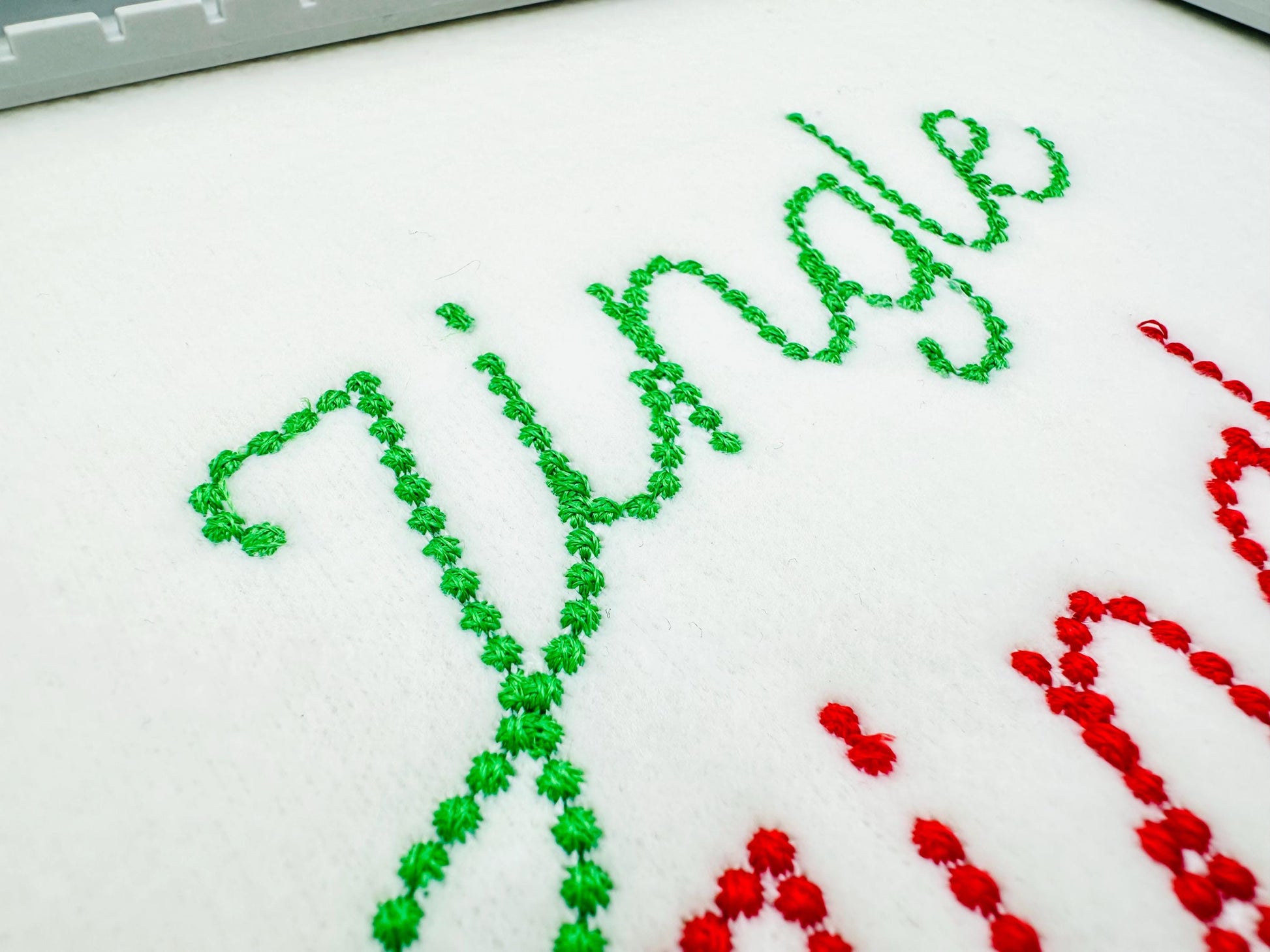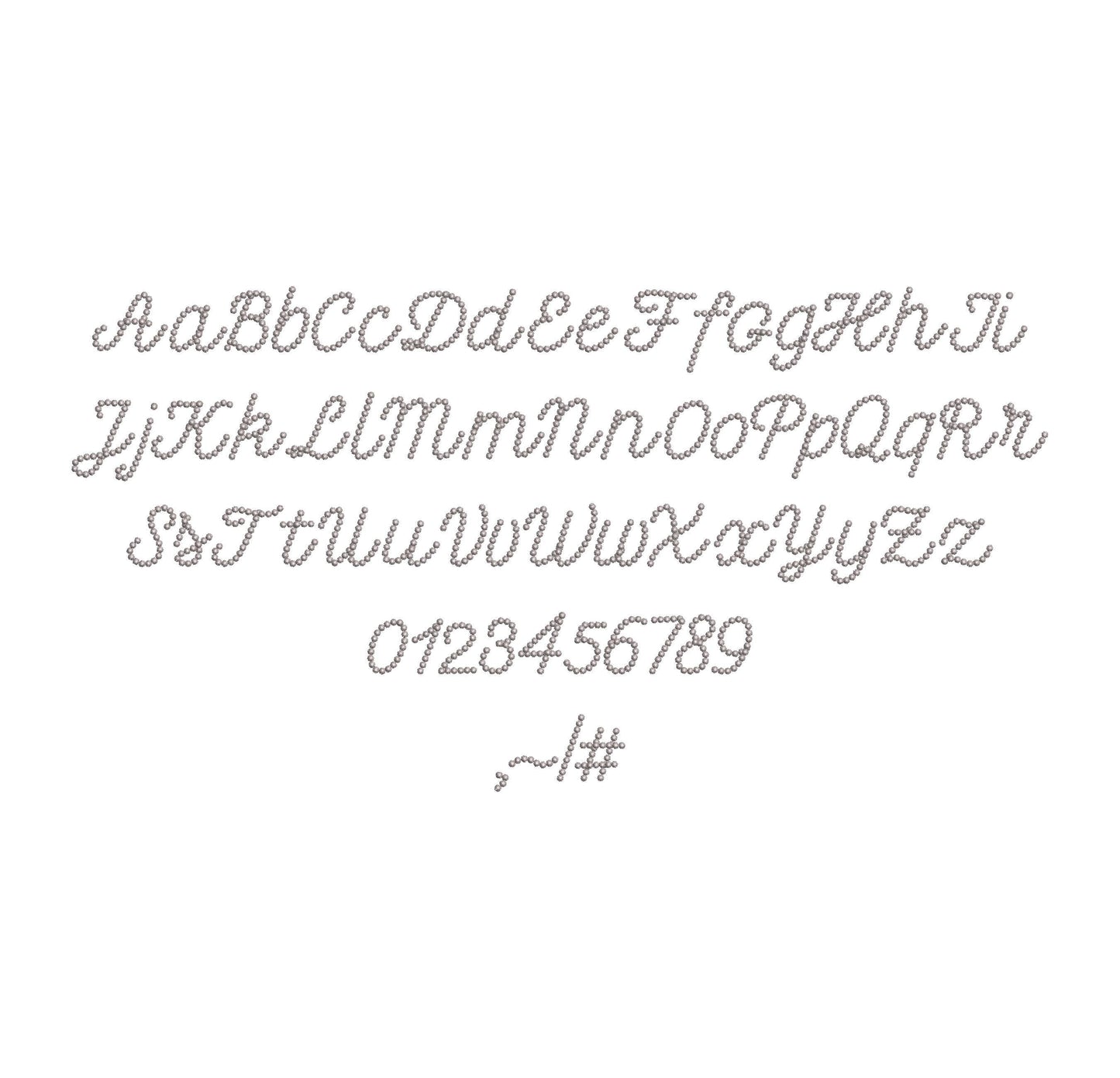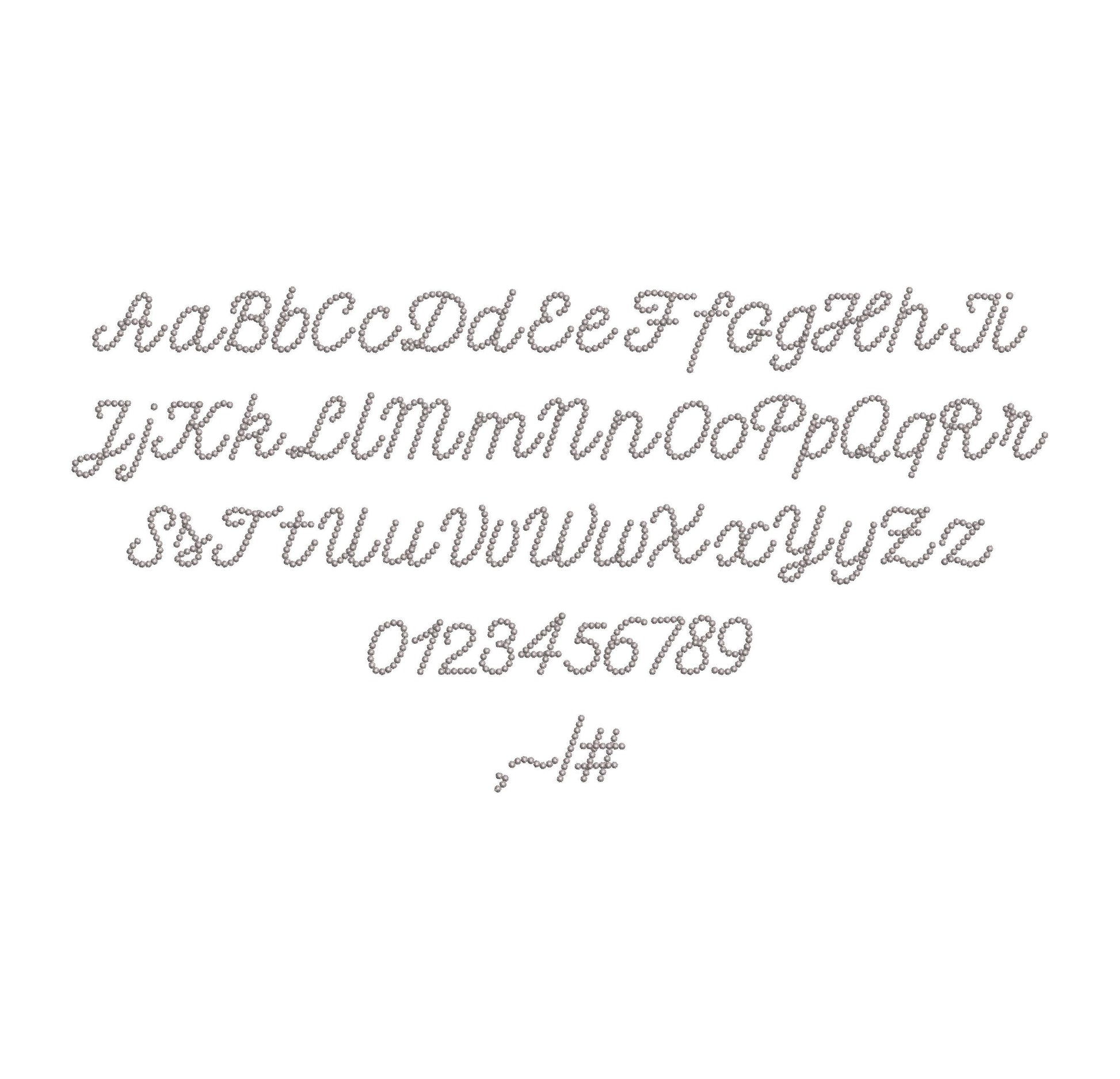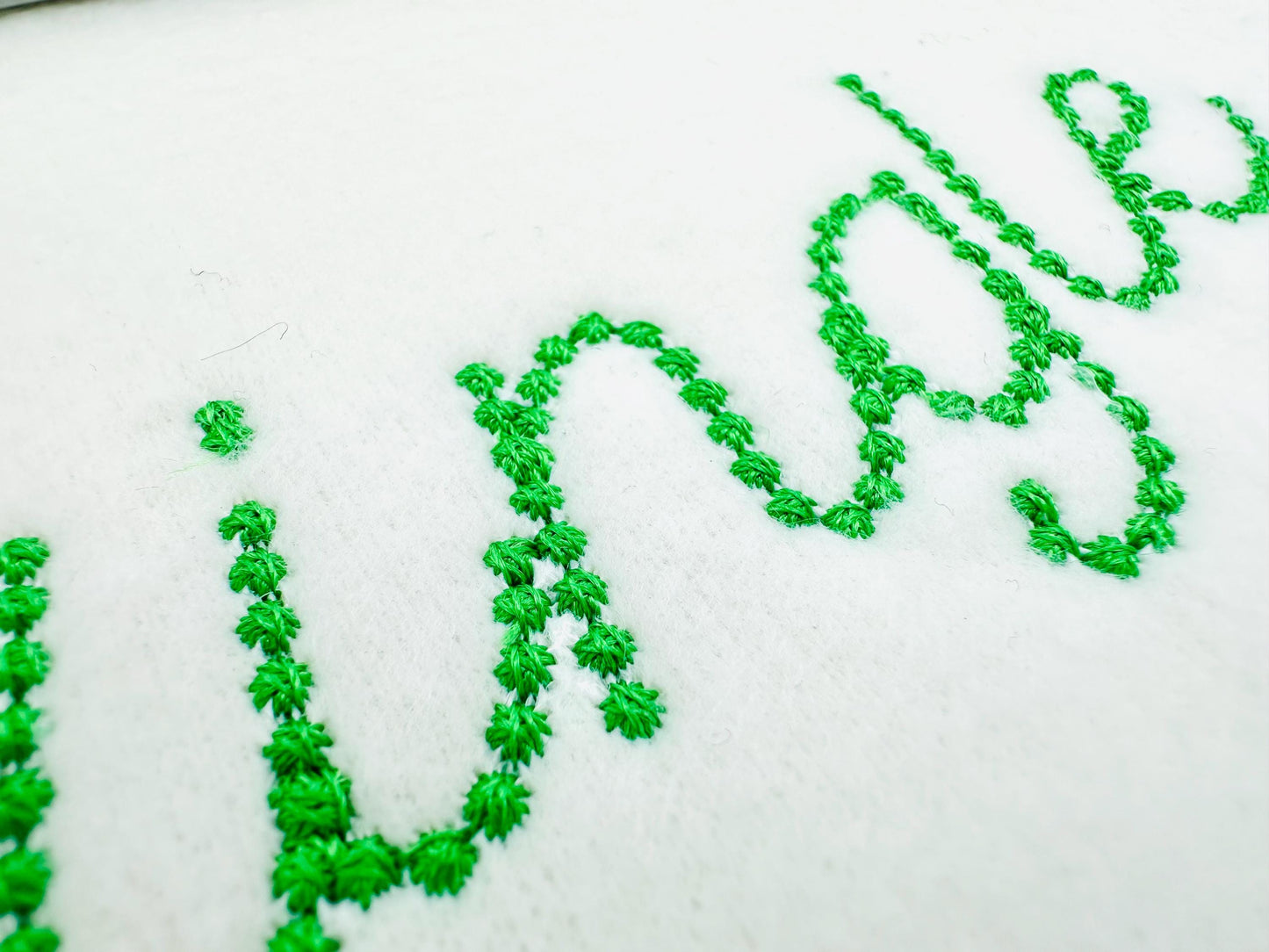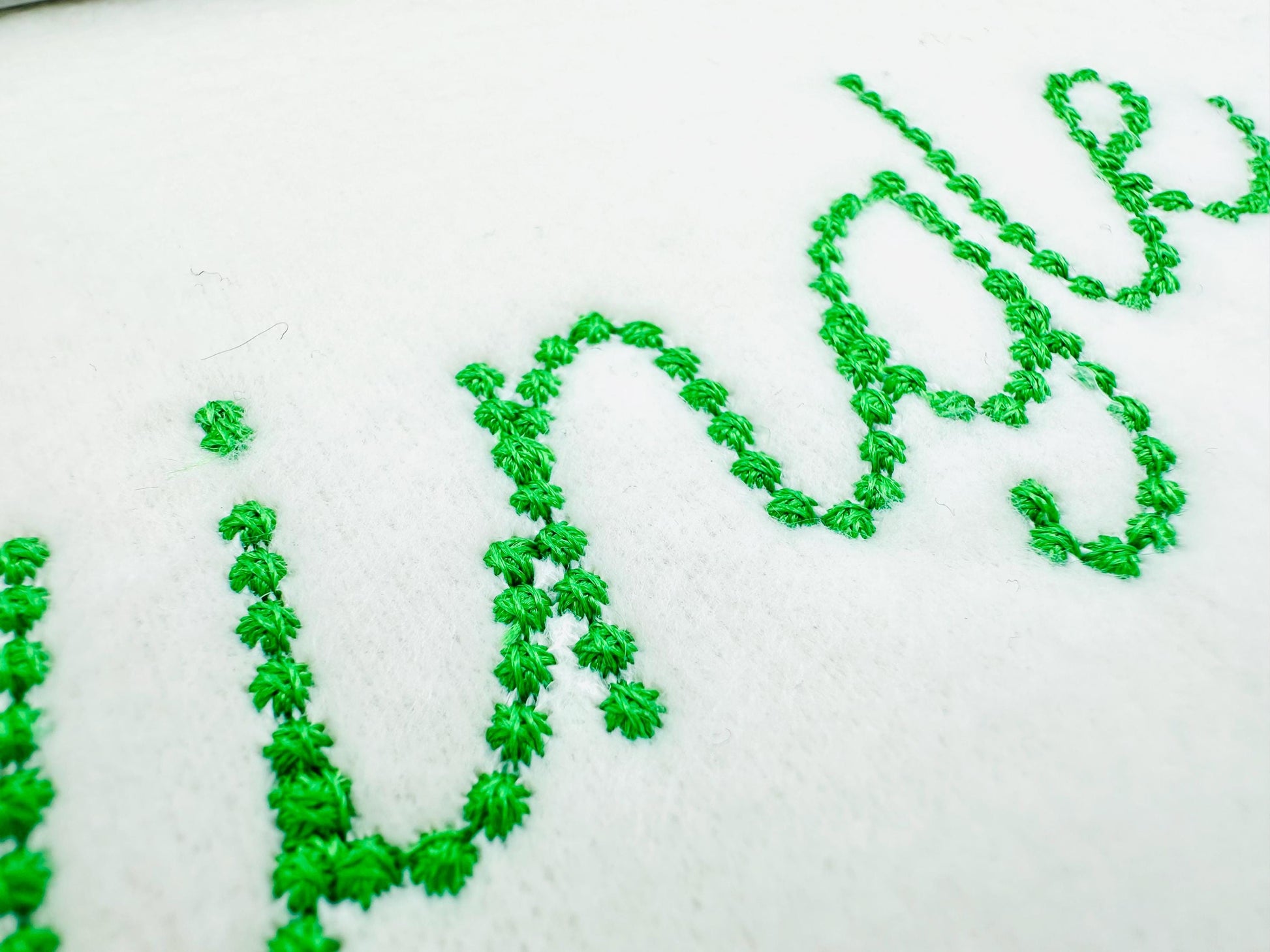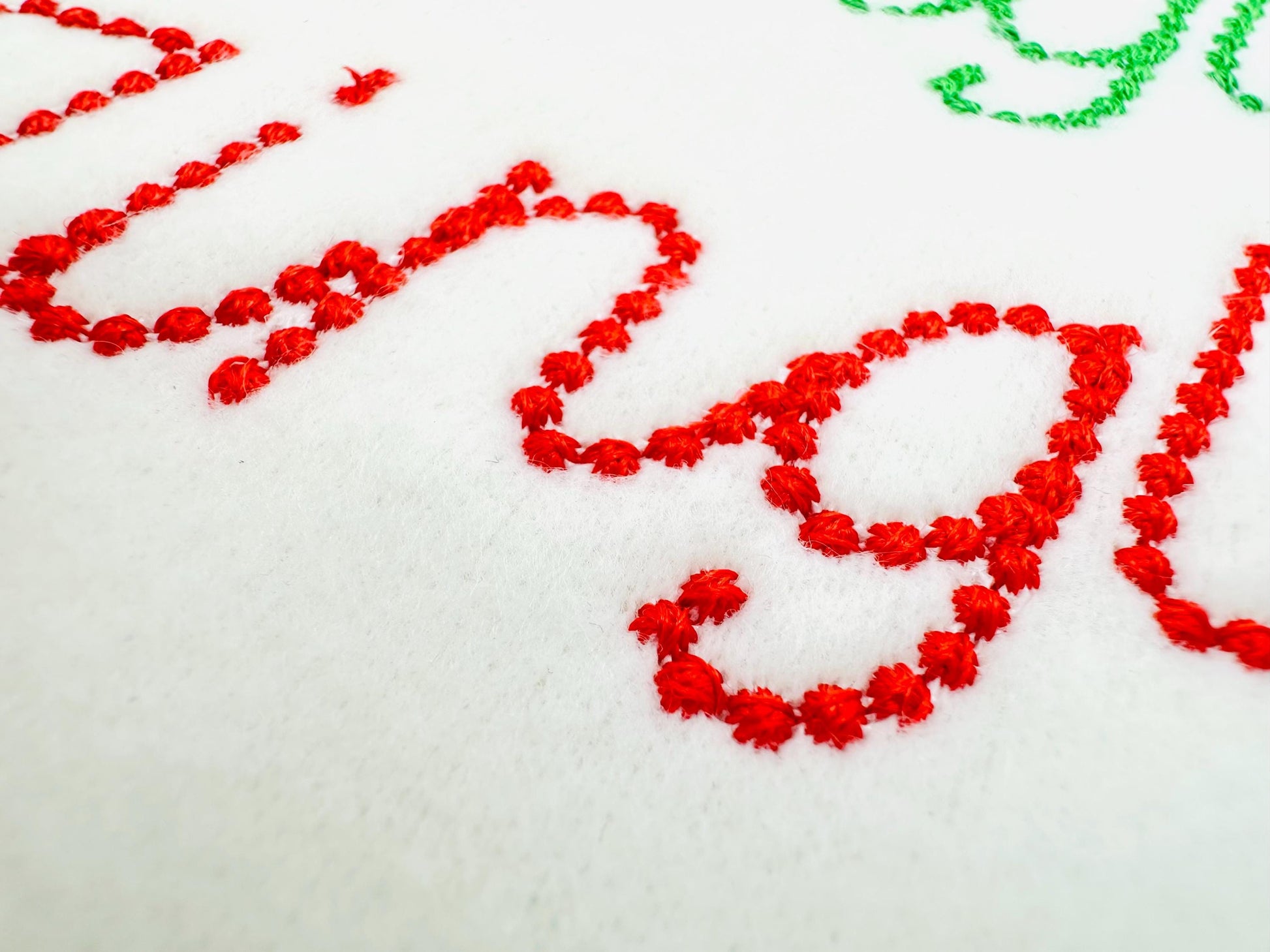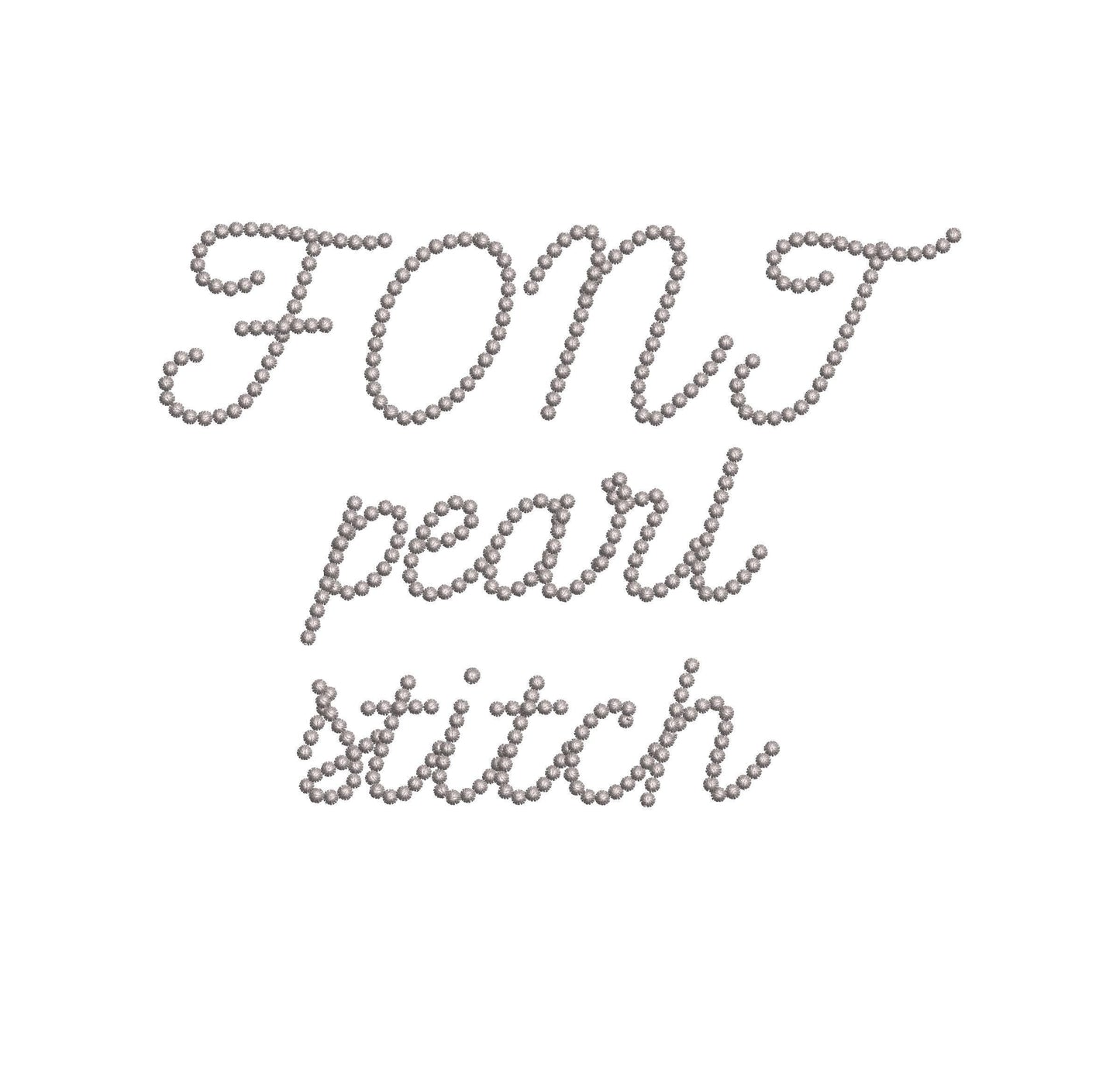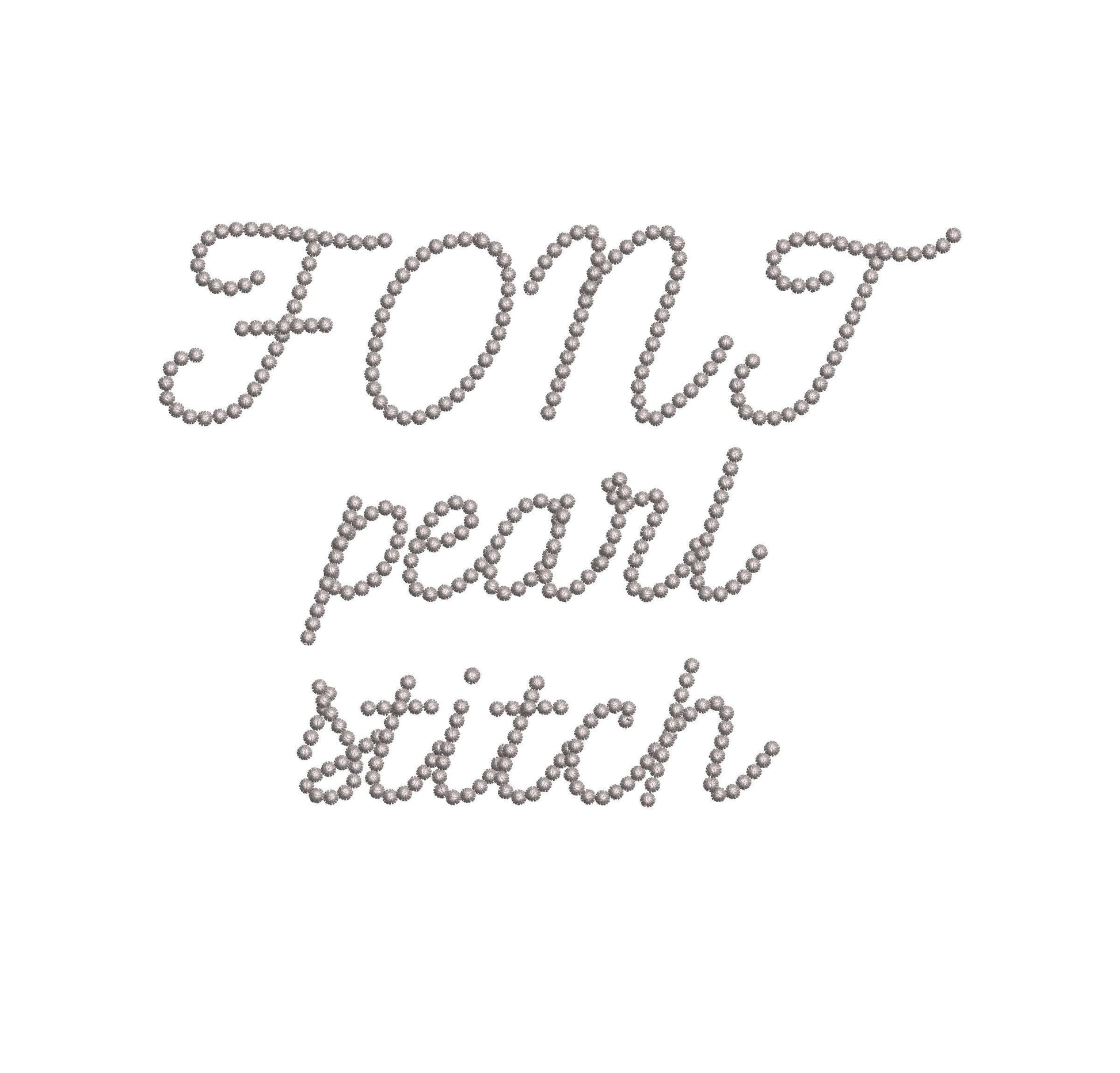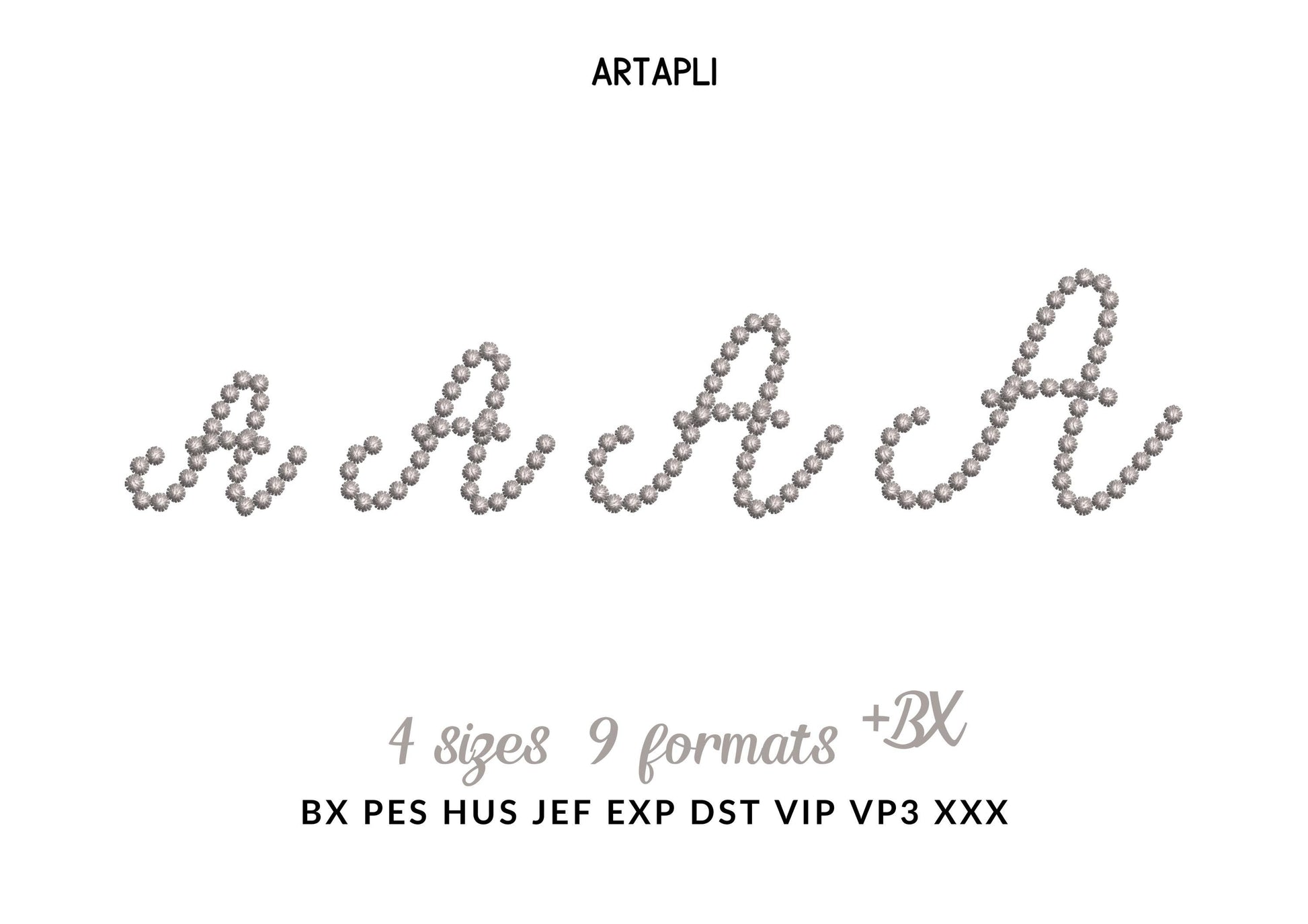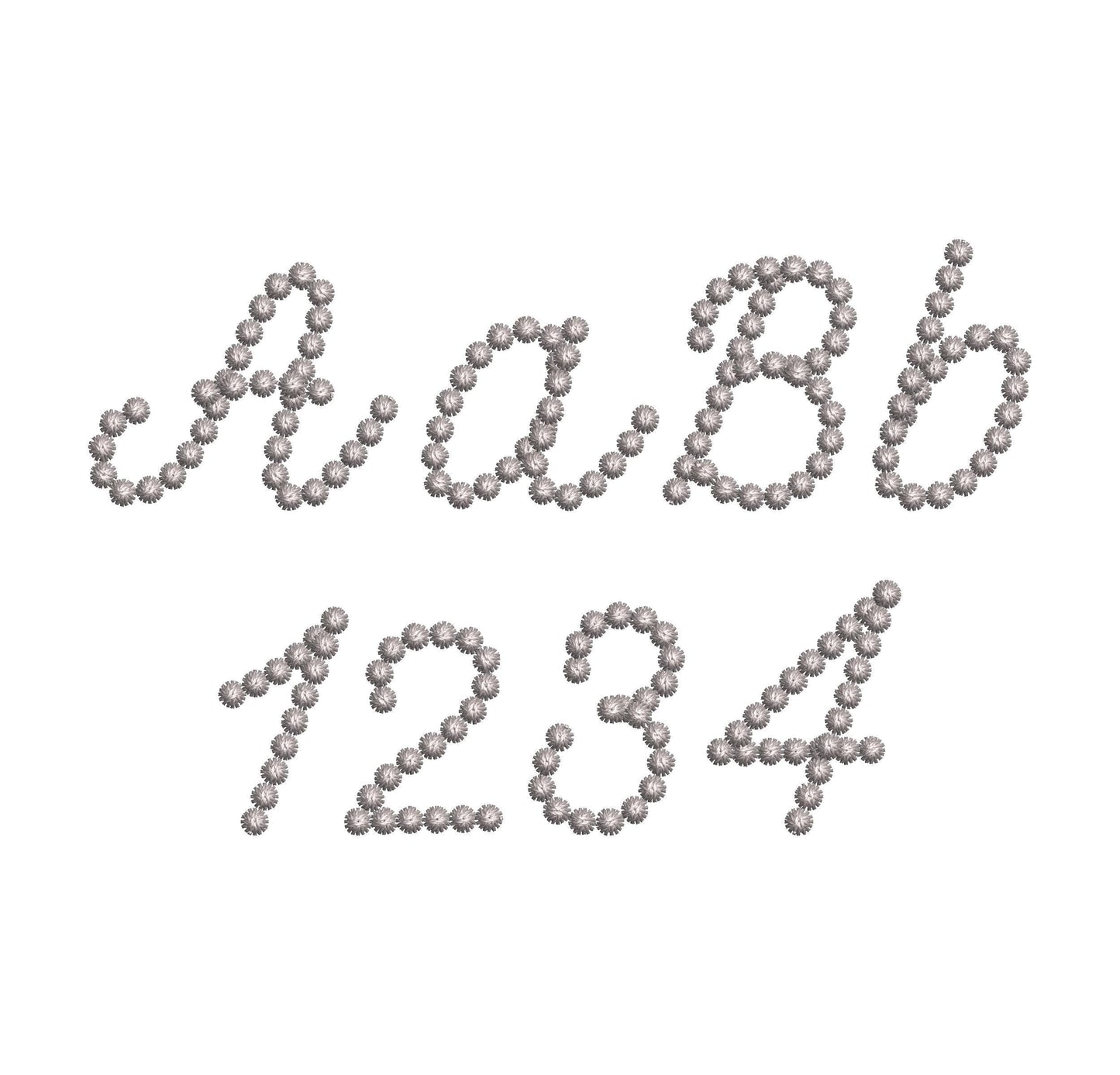
Petit Pearl Font
The letters come in four mini sizes: 0.9, 1.1, 1.3 and 1.6 inches. A fine pearl stitch gives the script a soft, beaded look. Includes uppercase and lowercase letters A to Z, numbers 0 to 9 and punctuation.
- Petite pearl stitch script font